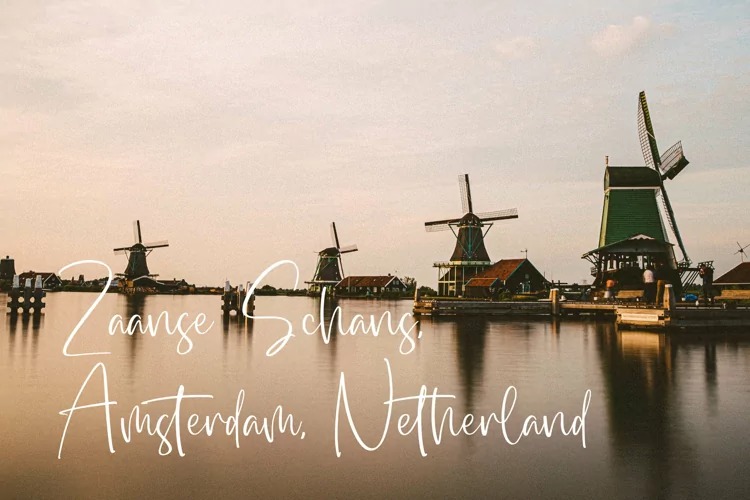
Dialog Sheila Script Font
It’s a casual signature script typeface, inspired from vintage handwritten script on love latter. Suitable for any projects such as: logos, branding projects, homeware designs, product packaging, mugs, quotes, posters, shopping bags, t-shirts, book covers, name card, invitation cards, greeting cards, label, photography, watermark, special events, and all your other luxury projects that need a premium signature taste.